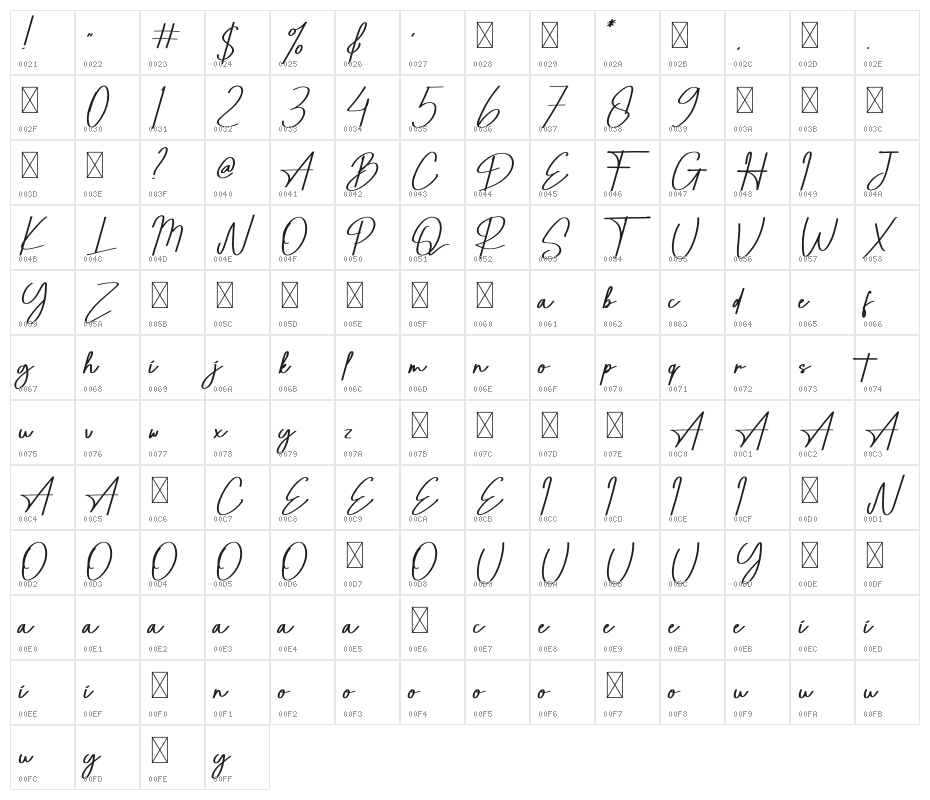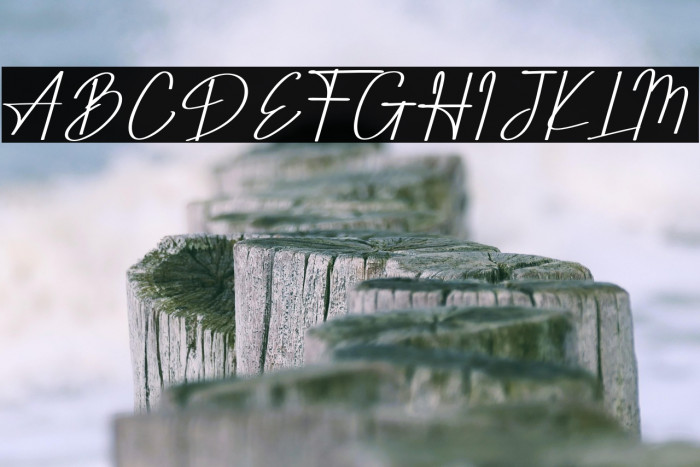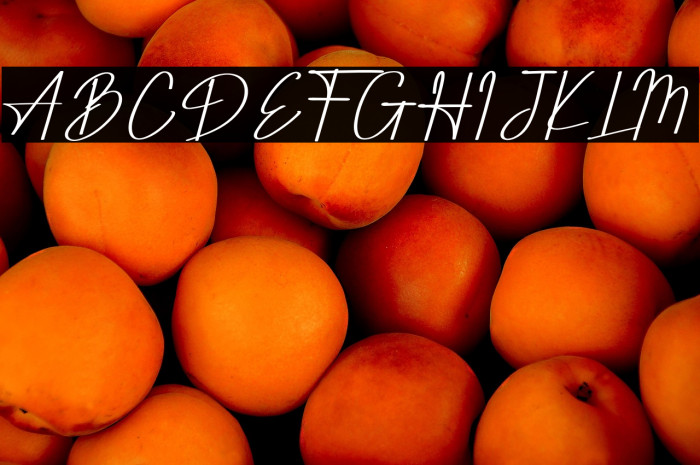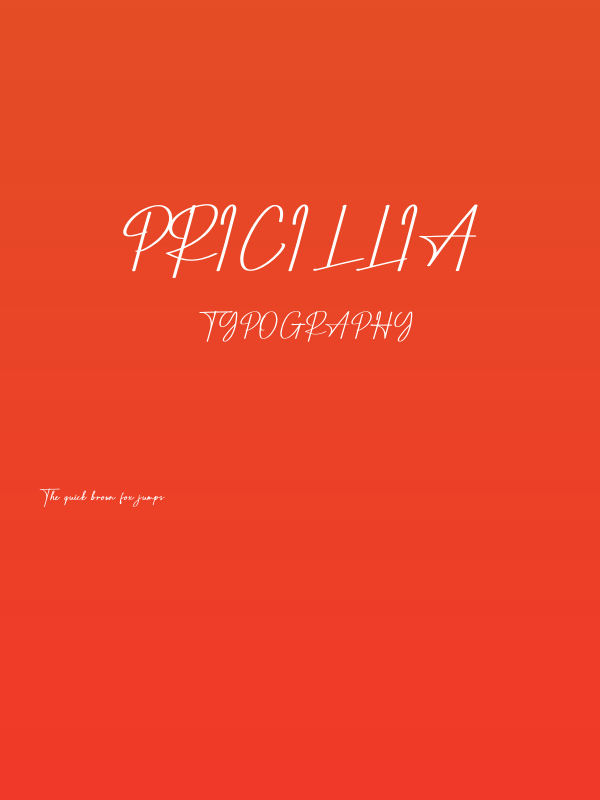
Pricillia Font
Pricillia Description
This font features a dynamic and elegant script style, combining both uppercase and lowercase letters with a fluid, handwritten appearance. The uppercase letters are slender and slightly slanted, giving a sense of movement and grace. The lowercase letters are more bold and rounded, providing a nice contrast to the uppercase set. The numerals are consistent with the uppercase style, maintaining the slender and slightly slanted form. Special characters are included, matching the overall aesthetic with a playful and artistic touch. This font is versatile, suitable for a variety of creative projects.
| Use Case | Logos, Invitations, Social Media |
| Proposed Projects | Ideal for wedding invitations, greeting cards, branding, and social media graphics. |